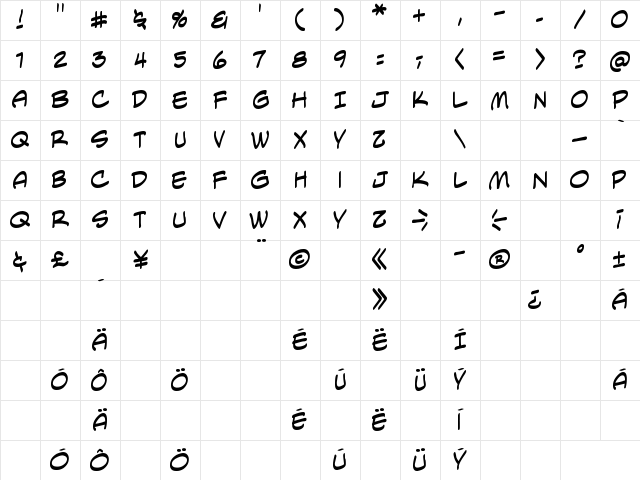
AntiHrdina Regular Free Font
AntiHrdina Regular
Complete AntiHrdina Regular glyph index. Displaying only characters natively supported by AntiHrdina Regular font.
Design Context for AntiHrdina
AntiHrdina is a composed and adaptable typeface that performs quietly and consistently across a wide range of design contexts.